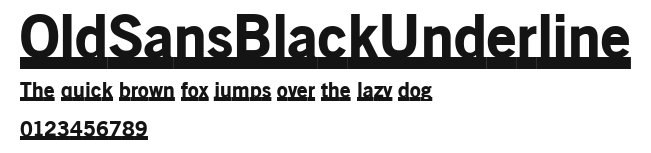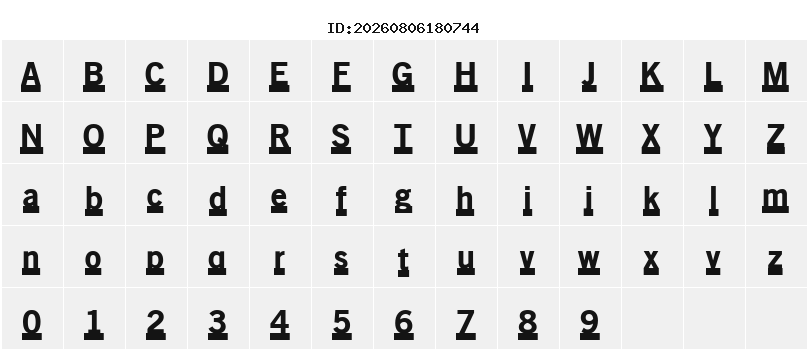
• Font Name: OldSansBlackUnderline
• Full Font Name: OldSansBlackUnderline
About OldSansBlackUnderline.ttf
OldSansBlackUnderline.ttf is a modern, elegant sans-serif font designed for ultimate readability and visual harmony. Perfect for branding, headlines, web design, and print materials.